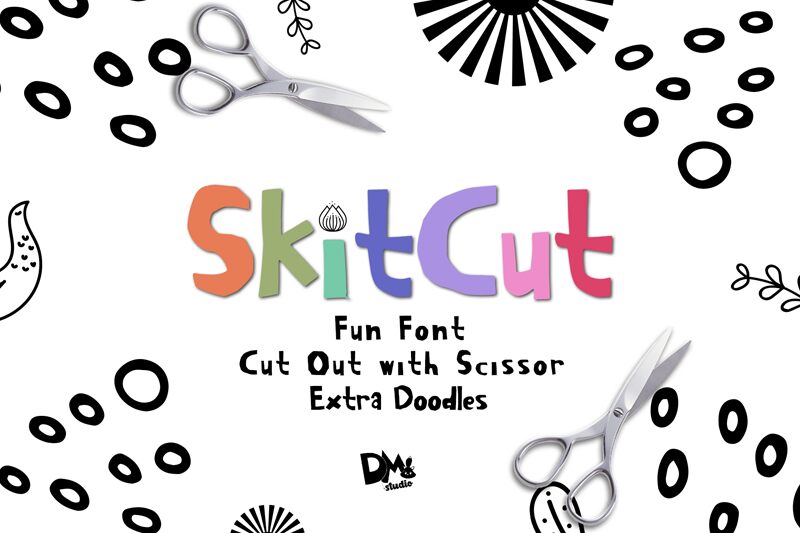
Skitcut, designed by Dm Letter Studio - Dimas Prasetyo, is a playful display font that adds a touch of excitement to any project.
With its quirky letterforms and unique style, Skitcut is perfect for children's books, toy packaging, and whimsical branding. Its bold weight commands attention while its condensed width allows for efficient use of space on posters and advertisements. Whether you're designing a birthday card or creating an eye-catching logo, Skitcut will bring a sense of fun and joy to your creative endeavors.